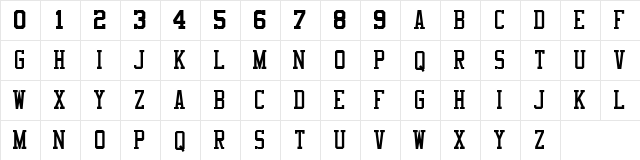
Varsity Classic Serif A Regular
Design Context for Varsity Classic Serif A Typeface
Varsity Classic Serif A has the bold swagger of sports branding: strong, assertive letterforms designed to dominate headlines and jerseys alike.
Built for sports team identities, athletic apparel, event posters, and high-energy promotional material.
Pro Tip: Varsity Classic Serif A thrives on contrast — try it large, bold, and tight against a clean background for maximum visual impact.